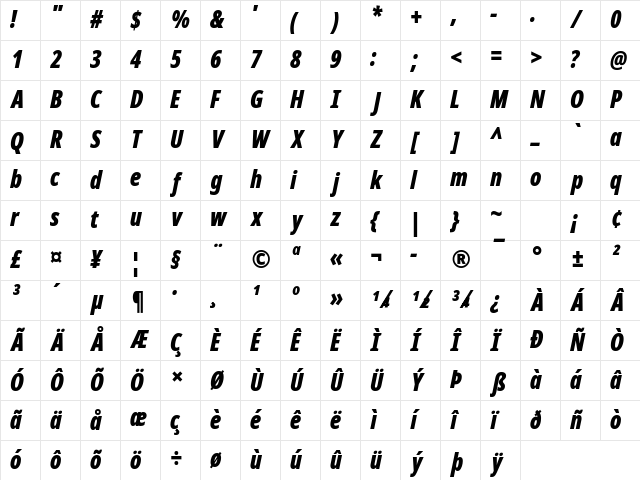
NotoSansDisplay Nerd Font Mono Italic
Foundry: Monotype Imaging Inc.
Designer: Monotype Design Team
Complete NotoSansDisplay Nerd Font Mono Italic glyph index. Displaying only characters natively supported by NotoSansDisplay Nerd Font Mono Italic font.
Design Context for NotoSansDisplay Nerd Font Mono
NotoSansDisplay Nerd Font Mono is built around its visual character rather than neutral utility - its distinctive forms are designed to make an impression at display sizes. The slanted form adds forward momentum and visual energy.
Font Pairing: Pair with a clean neutral sans-serif for body copy to let NotoSansDisplay Nerd Font Mono's character lead without overwhelming the composition.
Pro Tip: Use NotoSansDisplay Nerd Font Mono exclusively at display sizes - it was designed to be seen, not read at length. Let a neutral companion handle body copy.